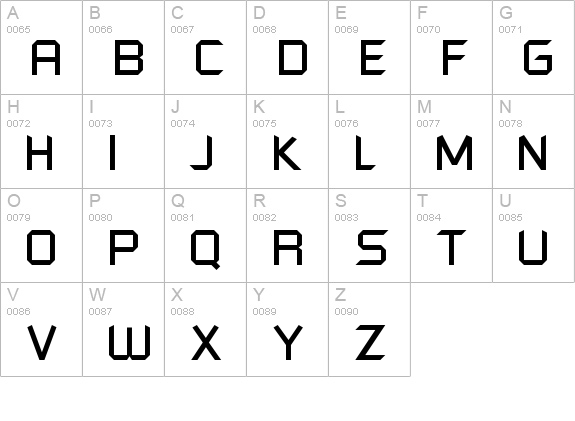
Russell Regular Font Details
Russell Regular is the standard, neutral variant in the Russell typeface family \xE2\x80\x94 well suited to general body text, paragraphs, and standard typographic work.
Russell Regular font is a versatile and stylish typeface that brings a touch of sophistication to any design project. With its clean lines and classic look, this font is perfect for creating elegant logos, stylish headlines, and eye-catching marketing materials. And the best part? Russell Regular font is completely free to download at FontsMarket.com! Whether you're a professional designer looking to add a new font to your collection or a hobbyist working on a personal project, this font is a fantastic choice that won't break the bank. Don't miss out on the opportunity to enhance your designs with the timeless elegance of Russell Regular font. Download it today for free and start creating beautiful typography that stands out from the crowd.